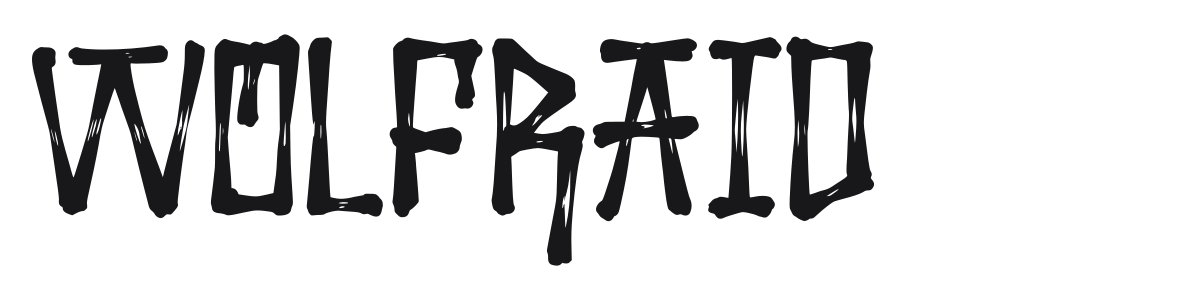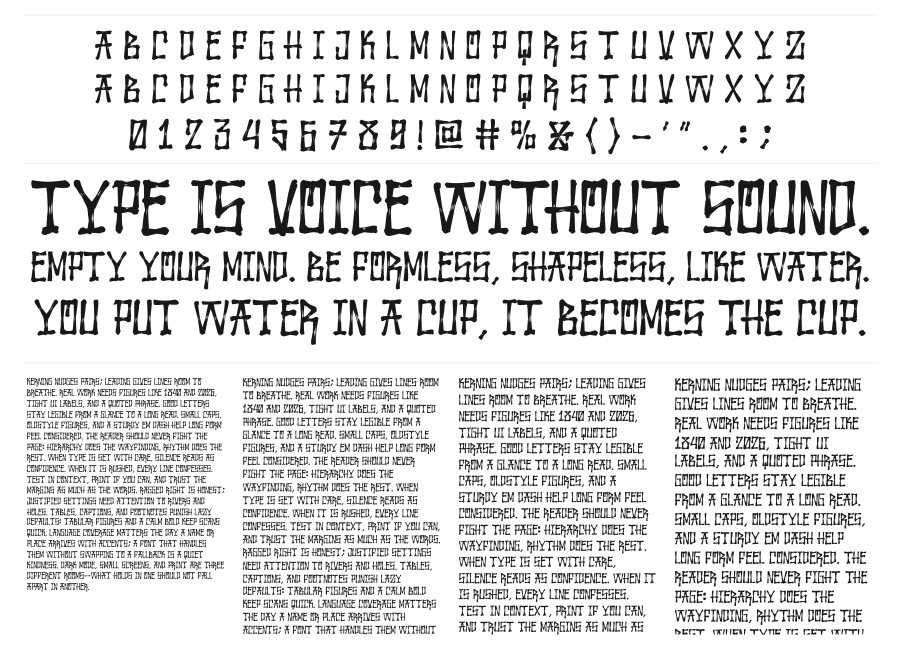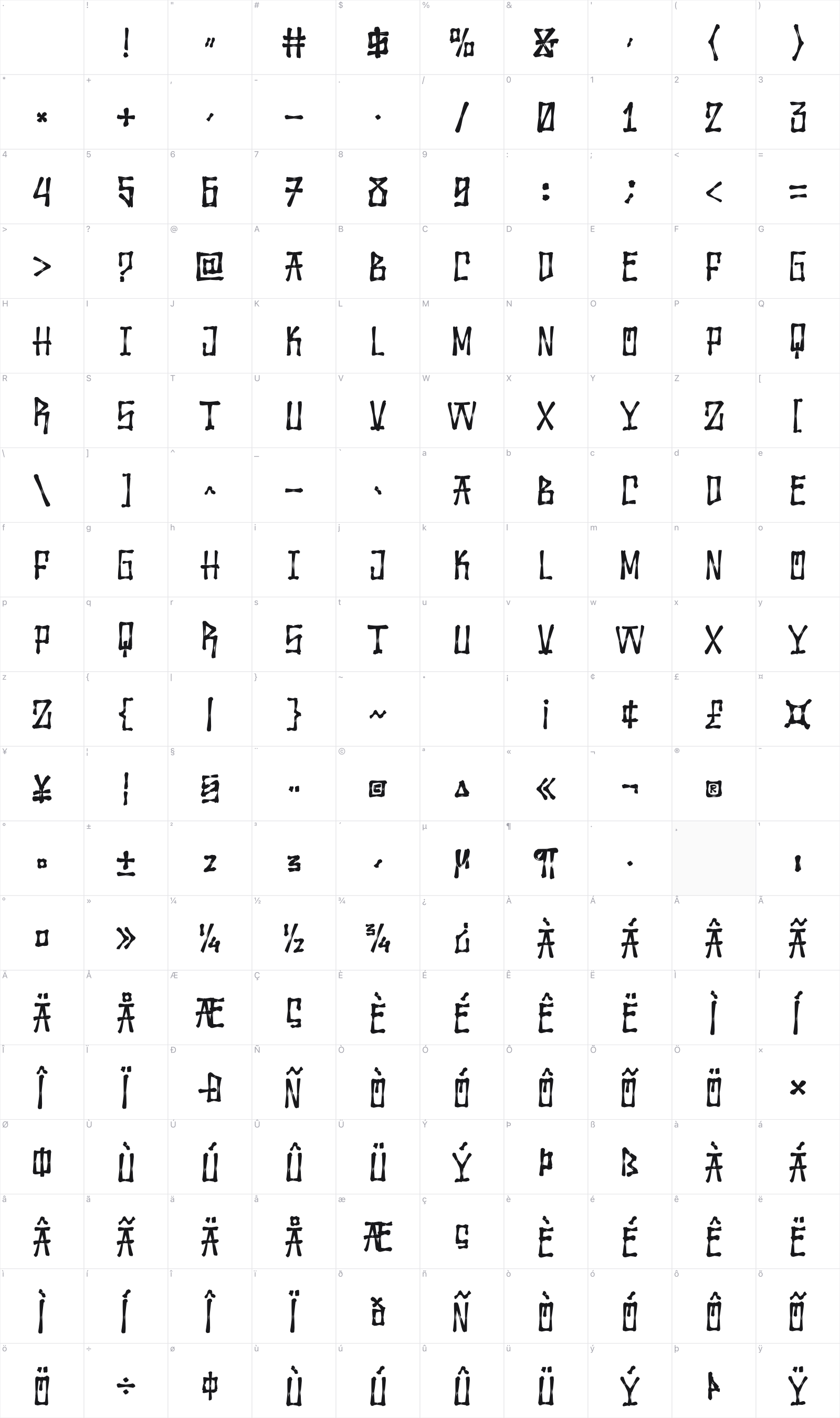
Wolfraid
Wolfraid is a condensed distressed display font with a jagged, battle-worn aesthetic drawn from East Asian brush calligraphy and angular Western blackletter. The stroke surfaces are heavily scratched and eroded, giving every character a raw, handcrafted ferocity. It commands attention on album covers, game titles, and poster work where edge and attitude matter.